Each of us dreams of a better life, maybe someone thinks how good it would be to become a king and have everything the heart desires. So this time feel like kings and diversify such a special design with these best royal fonts.
All these stunning royal fonts has been crafted by professional designers and are in the best quality no matter it is free or premium items. Feel free to take alook at our collection below and enjoy every detail by crafting your designs.
Royal King Vintage Serif Modern Font
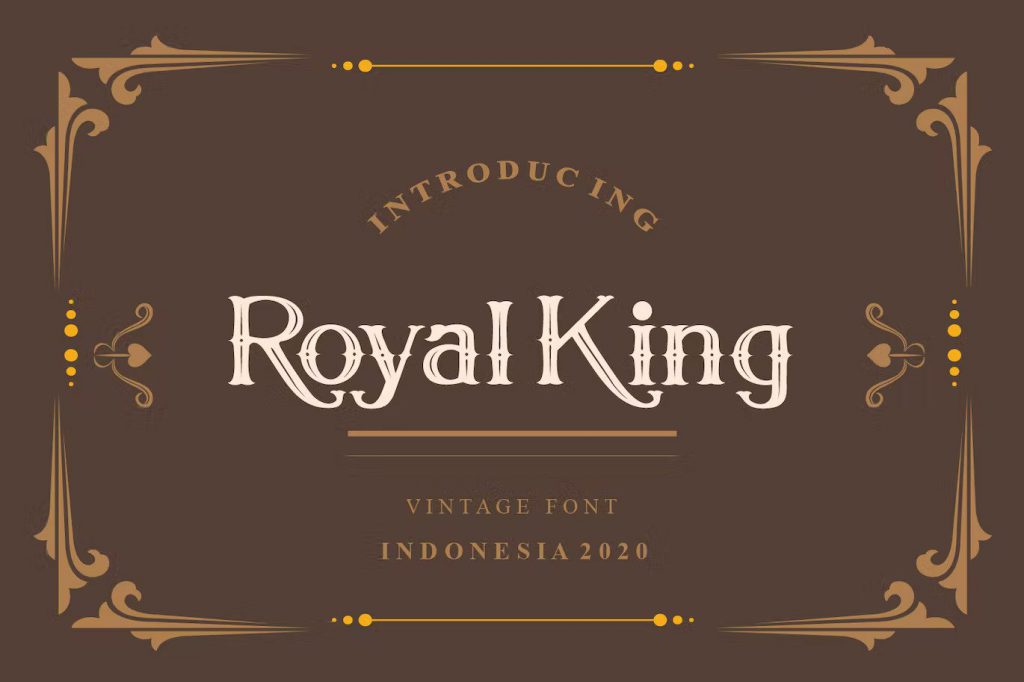
Unique, playful and versatile serif with ligatures and alternates that you can combine to get curves and beautiful shapes just in seconds. Ideal for magazines, postcards, logos, DIY Projects, invitation cards and etc.
Grand Royal Serif Font
It is a bold and classy serif font. Fall in love with its incredibly versatile style and use it to create gorgeous wedding invitations, beautiful stationary art, eye-catching social media posts and etc.
Royal Diamond Display Serif Font
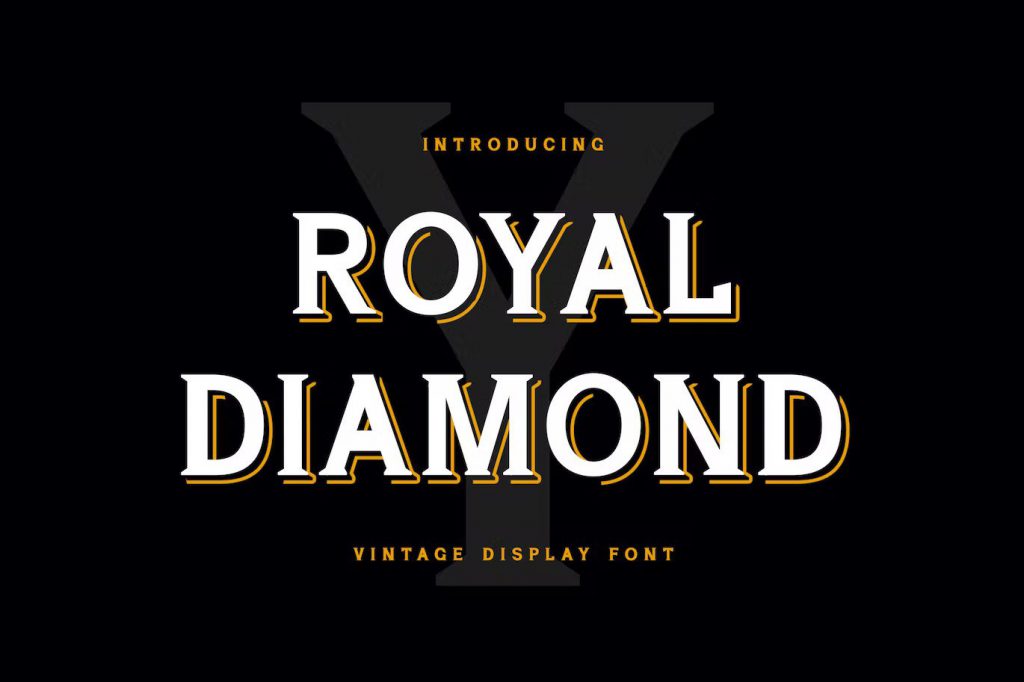
It is a serif font that combines classic style fonts moderated with a touch of minimalist design. Ideal for logos, posters, covers, main packaging, t-shirts, business cards, wedding cards and etc.
Taylor – Royal Classic Typeface
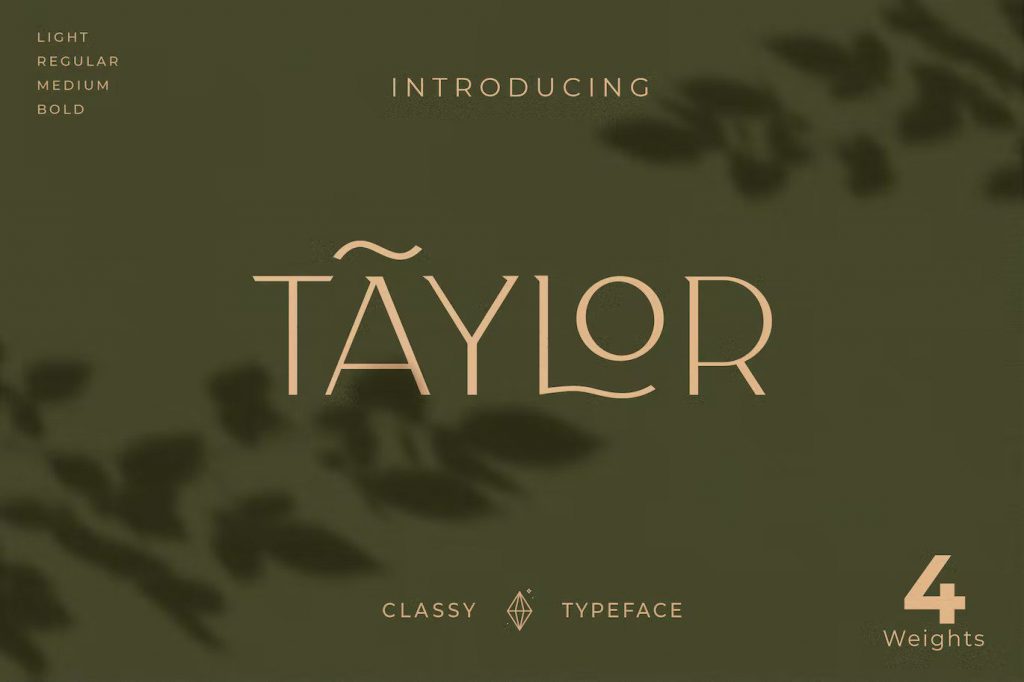
It is a minimalist modern elegant vintage font with beautiful ligatures, tons of special alternative glyphs, ornament and multilingual support. Perfect for branding projects, logo designs, clothing branding, product packaging, magazine headers and etc.
Royal Queen – Vintage Display Font
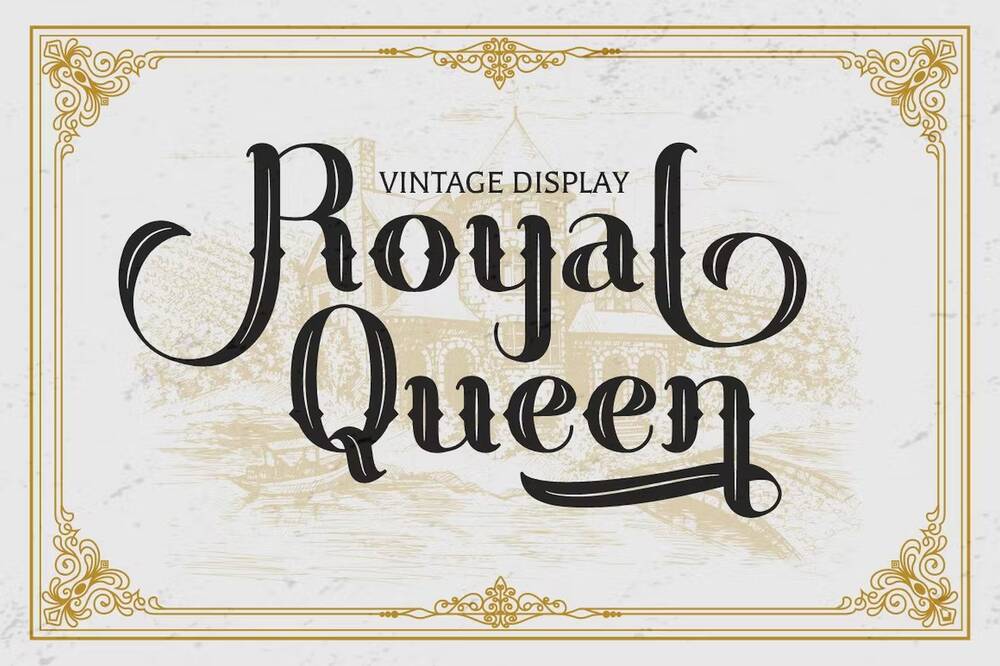
It is a display vintage typeface. Come up with decorative and clean style. Great for any kind of display purpose from logos, tshirt, apparel, quotes and etc.
Simply Royal Font
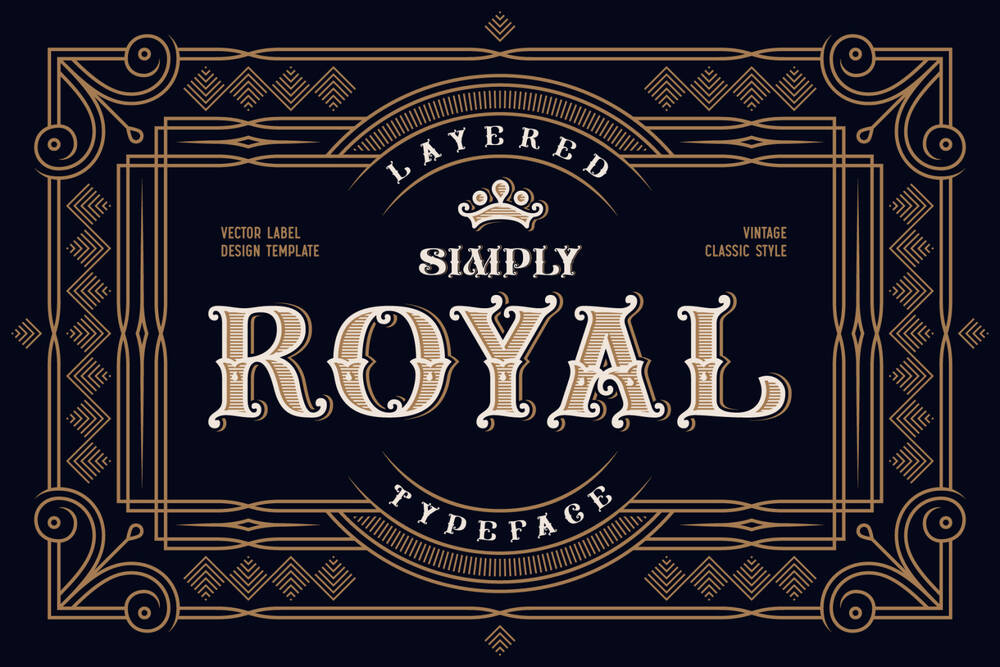
A vintage and decorative font has a victorian medieval look. Ideal for labels, badges, branding, posters, packaging and etc.
Royale Amour Font Duo
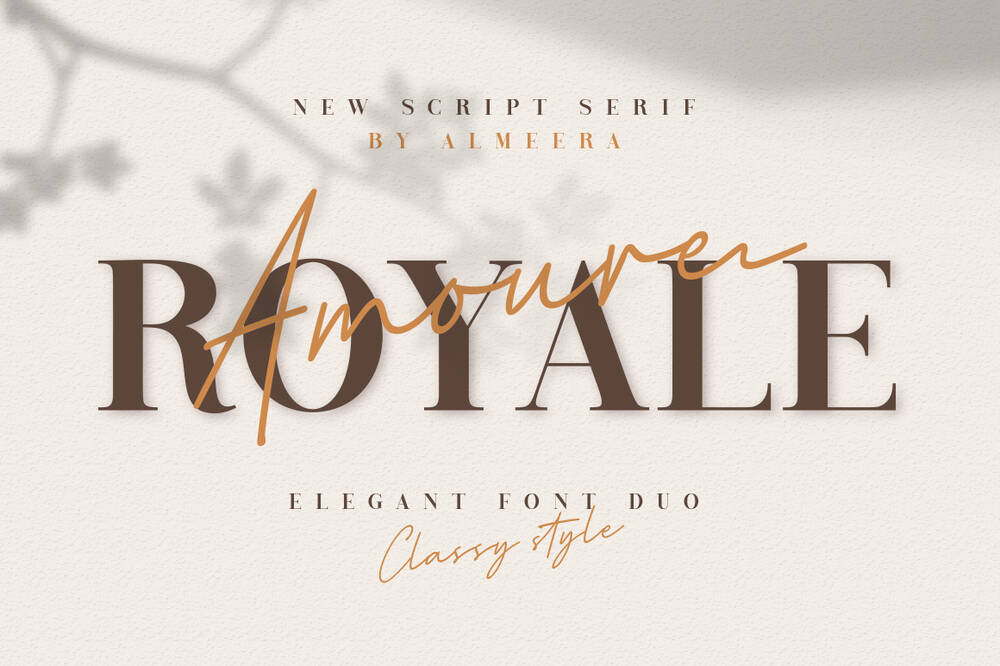
This font offers beautiful typographic harmony for a diversity of design projects, including logos & branding, wedding designs, social media posts, advertisement, signatures and etc.
Royal Knight – Modern Serif Font
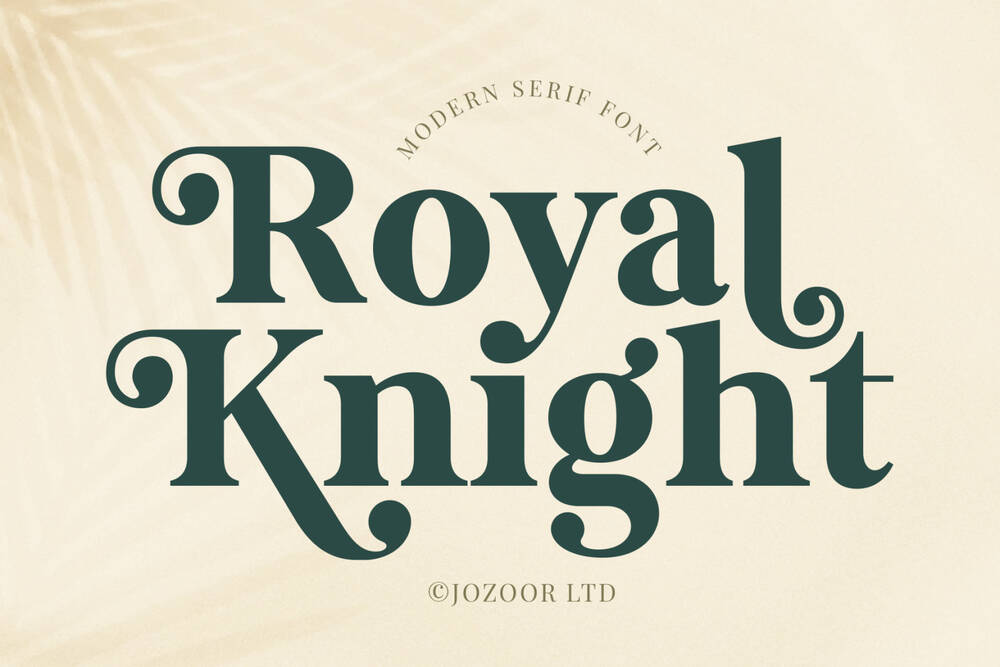
It is a cool and stylish modern serif font featuring its own unique style and modern look. Perfect for an elegant & luxury logos, book or movie titles, fashion brand, magazines, clothes and etc.
Avante Font
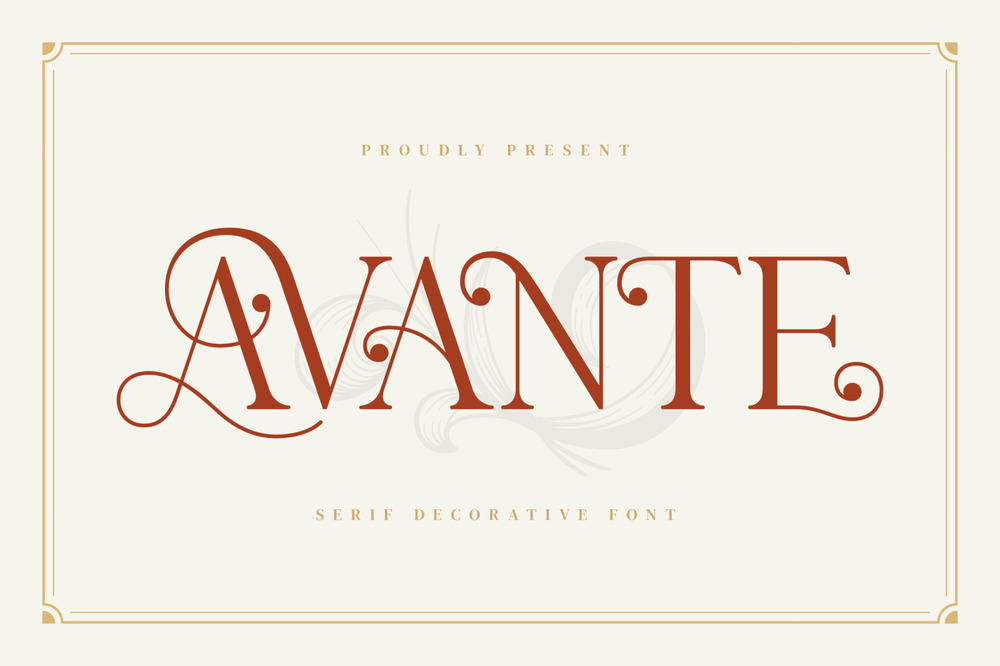
This font was inspired by the famous minimalist logos so good for the purposes of designing templates, brochures, videos, advertising branding, logos and etc.
Free Rowan & Royal Font
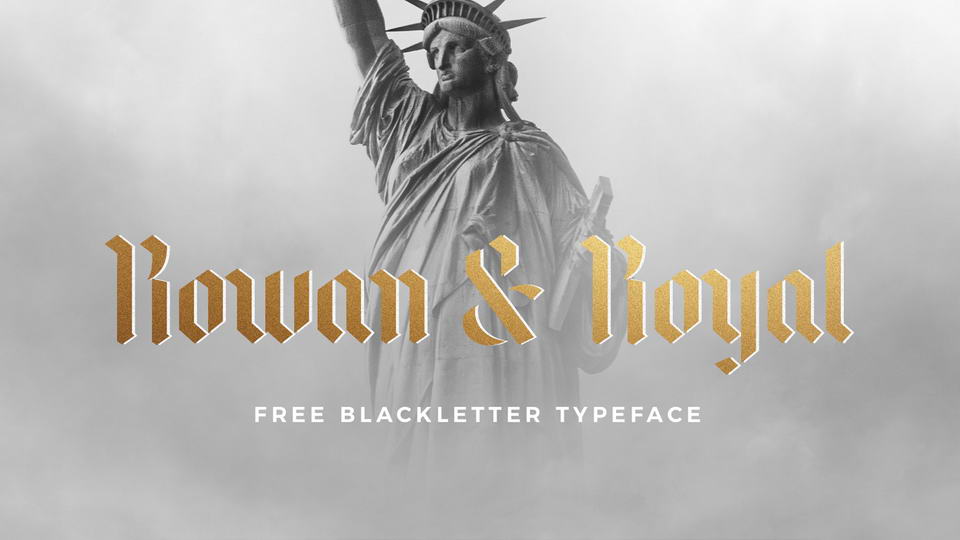
It is an amazing free royal font in blackletter style so good for badges, labels, logos, branding, packaging and etc.
Royal Haster / Elegant Signature Font Duo
Elegant signature font duo with smooth curves is great for branding, logo designs, lettering, clothing, posters, magazines, packaging and etc.
Royal Kevino – Serif Font
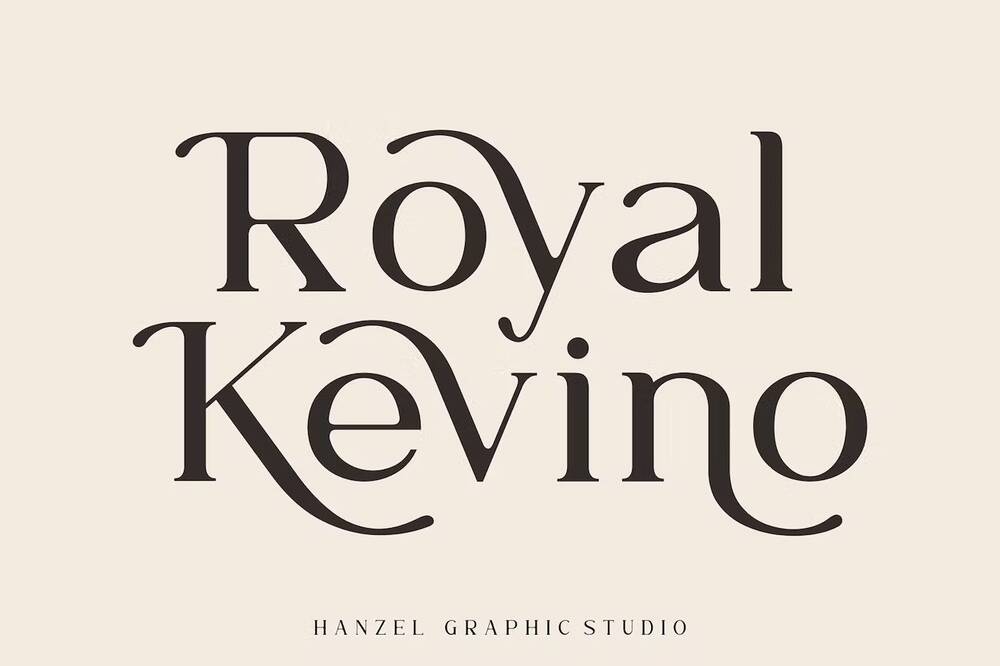
This modern serif typeface features serifs. Perfect for gorgeous logos and titles.
Royal Wedding – Logo Font
It is a natural handwriting modern script calligraphy font so ideal for signatures, logos, branding, packaging and etc.
The Royal Chambers
It is a sophisticated display serif typeface. Very suitable for logos, headlines, tittles and etc.
Royal Butter Font
This cool font looks stunning on wedding invitations, thank you cards, quotes, greeting cards, logos, business cards, and every other design which needs a handwritten touch.
AMR Royal Grande Font
A blackletter style font for your royal designs so good going for lettering, quates, logos, posters and etc.
Royal Augustine Serif Font
Modern serif font that feels beautiful classy, elegant, and modern . Perfect suited for a wide variety of projects, as to signatures, stationery, logos, wedding, typography quotes, magazines and etc.
Royale Luxurious Typeface
It is a minimalist modern elegant font with beautiful ligatures, tons of special alternative glyphs, ornament and multilingual support. Good for branding projects, logo designs, clothing branding, product packaging and etc.
Royal Mansion Calligraphy Font
It is a monoline calligraphy font so good for product packaging, branding projects, megazines, social media, wedding and etc.
Royalite Script Family
It is classic script font that contain stylistic alternate, swash, etc to create your own customized signature. Perfect for branding, lettering, posters, packaging and etc.
Carnidal Typeface
It was inspired by the victorian era. Looks elegant, old and has a royal feel to it. This typeface is suitable for any vintage related projects.
Kattelyn – Vintage Elegant Serif Font
It is a classic fancy vintage font so good for designs such as branding, museum, historical of architectural, boutique branding, stationery designs, blog designs and etc.
It is an elegantly themed font that has a dynamic serif style so good for logos, posters, flyers, packaging and etc.
Carylin Millard Font